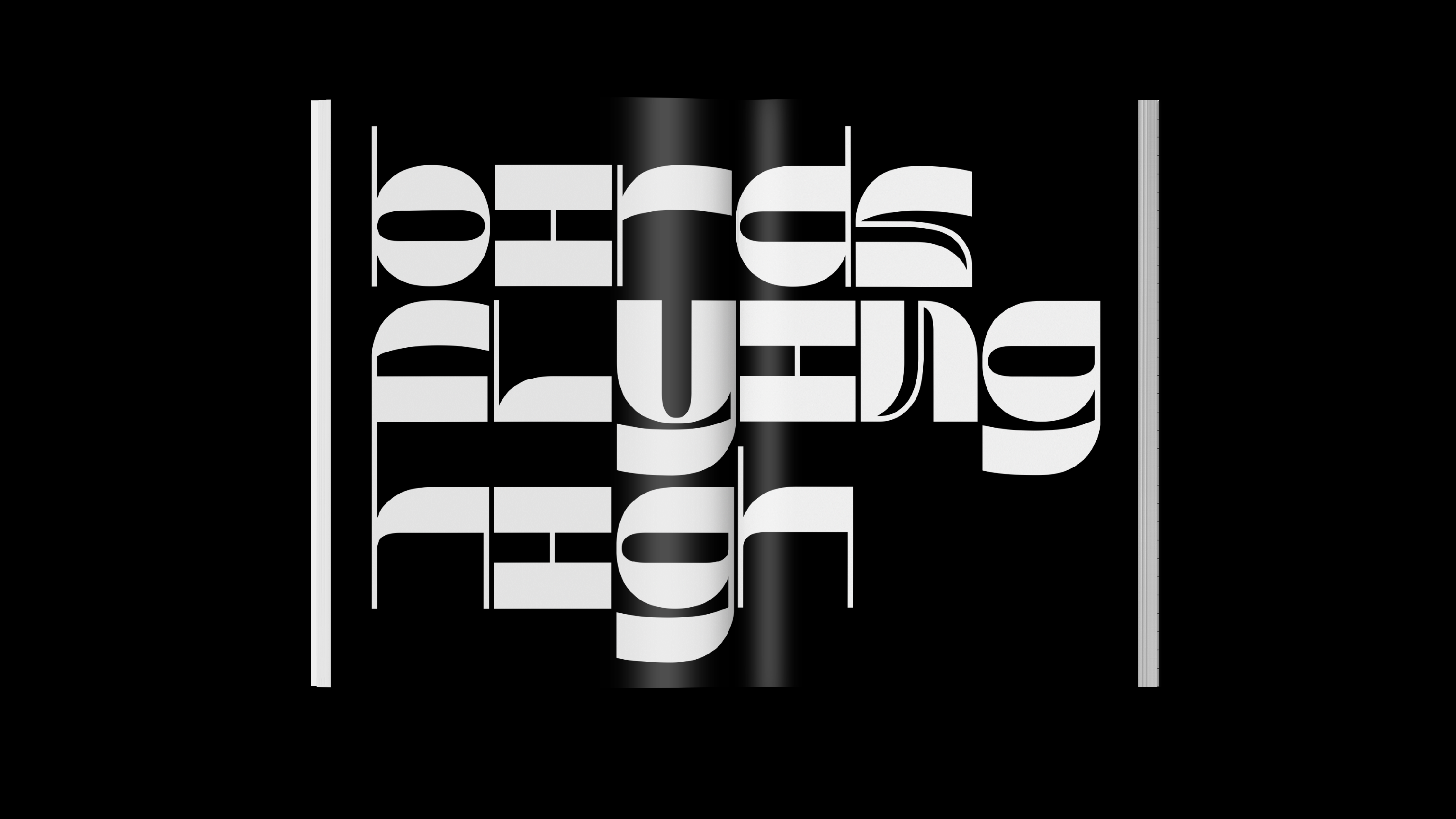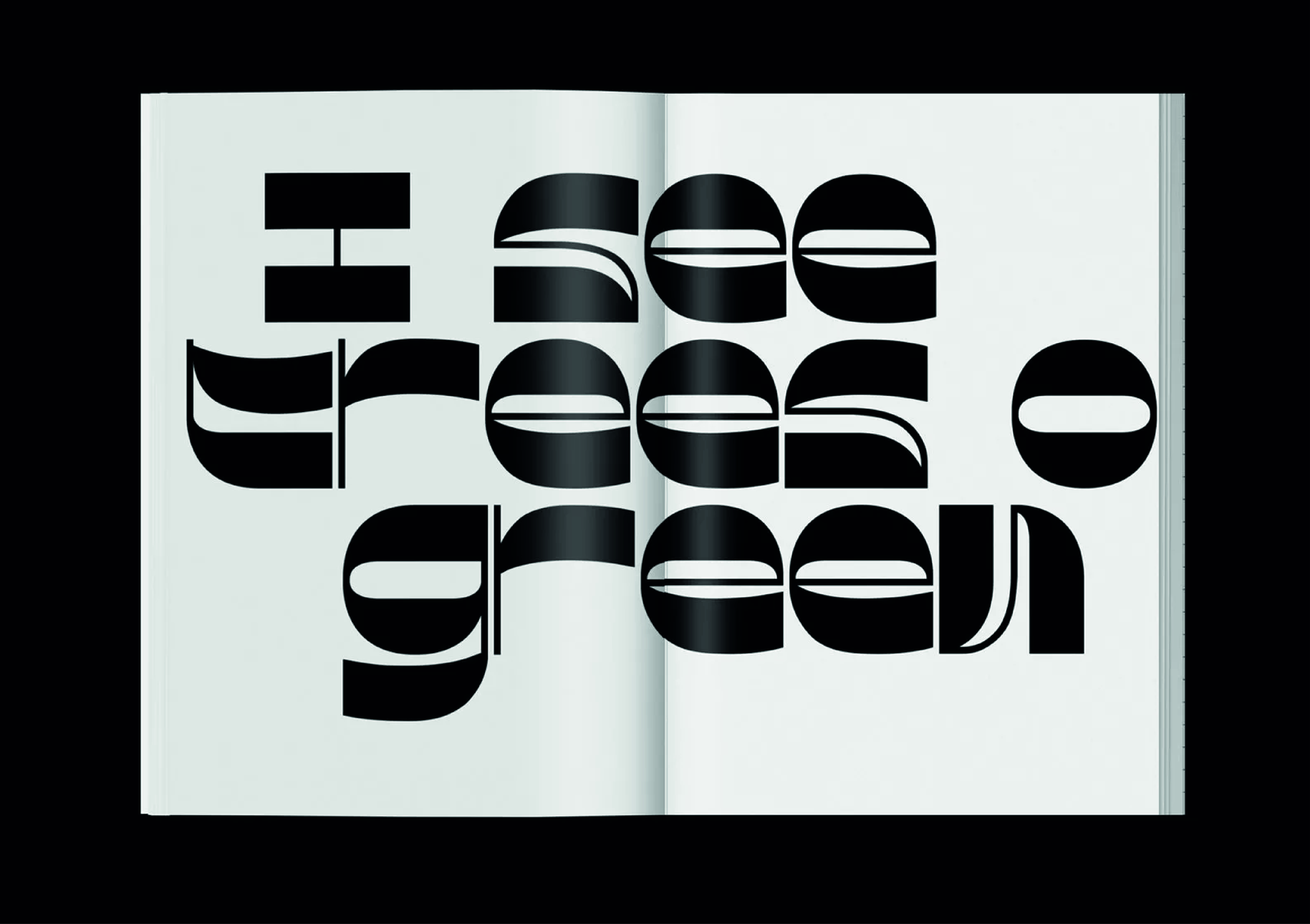
F37 Jazzkatz
Haider Muhdi’s homage to the improvisation of jazz music, with a smooth baseline and a syncopated character style.
Perfect for striking headlines, F37 JazzKatz is a reverse contrast sans with a large x-height. These provide a strong and consistent baseline throughout the font, while the letter forms themselves are eccentric and freeform. Included in the font are around 50 ligatures that dance around each other to create more comfortable shapes.
The Designer
Graduated from Lancaster University with first class honours, Haider has collaborated with some of the most prolific design and advertising agencies such as Uncommon Creative Studio, Wolff Olins, Mother Design, Droga5, Landor and R/GA.
Haider maintains a diverse client list with the likes of EA Sports FC, Nike, Virgin, New York Fashion Week, Uber and Fac 51 / The Haçienda to name a few. A conscientious all round designer and typographer with an appetite for brand disruption and a keen eye for art direction. His approach is always based on a strong conceptual vision married with an elegant design solution. His work has won recognition from Cannes Lion, D&AD, RSA and Type Directors Club.